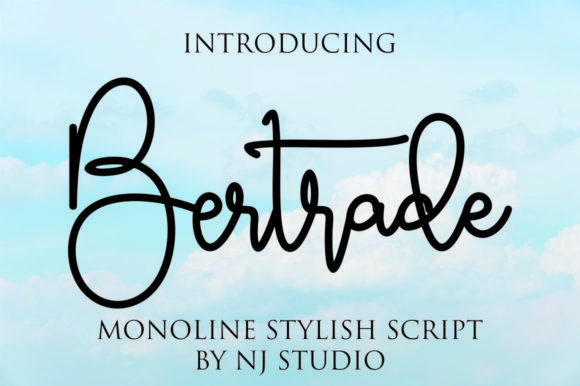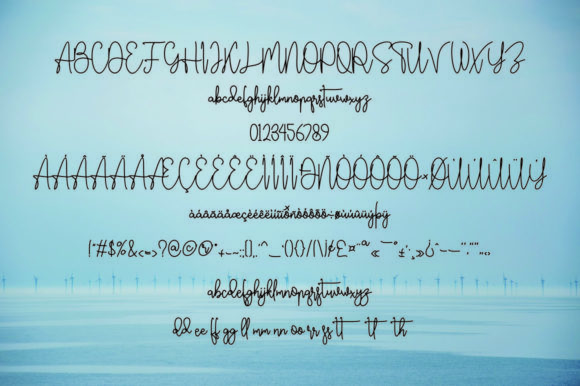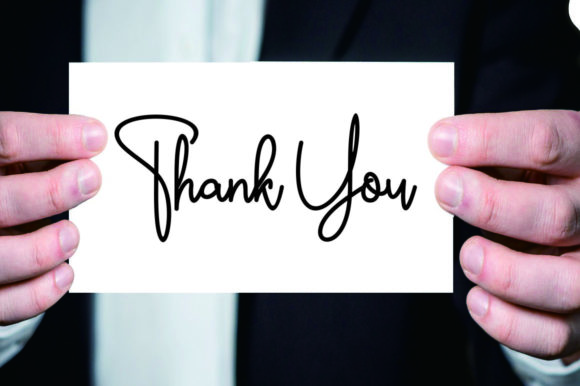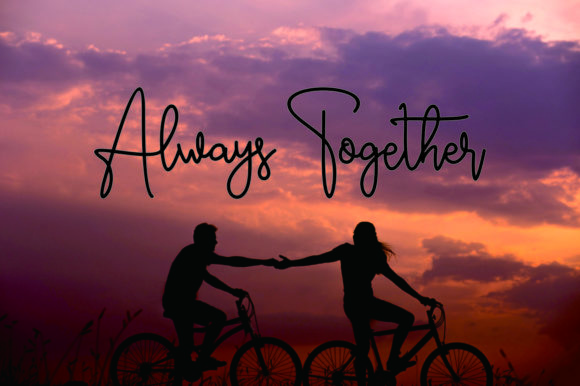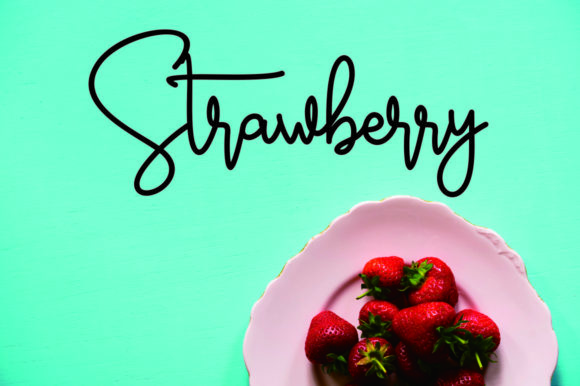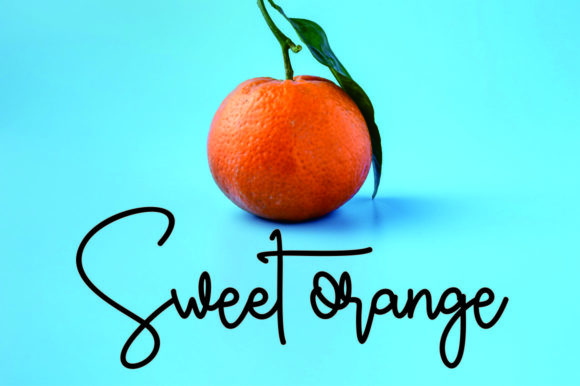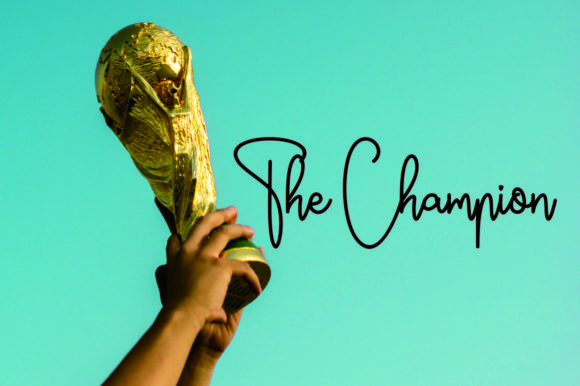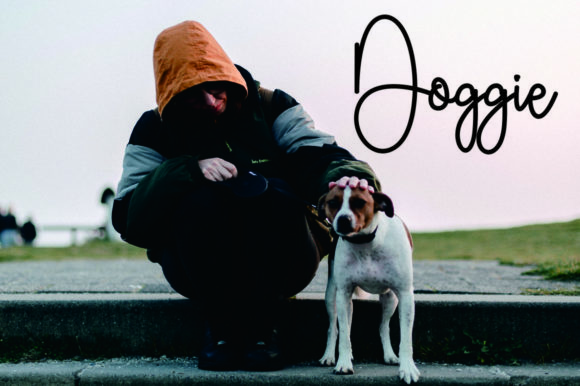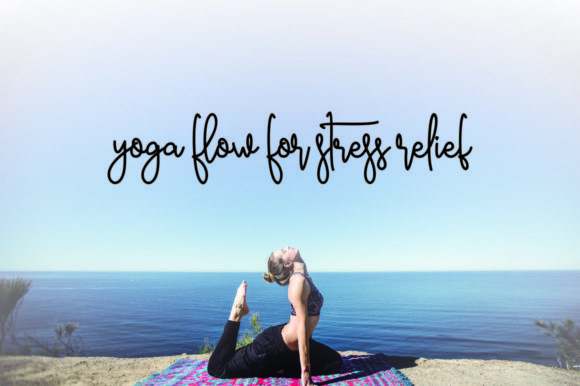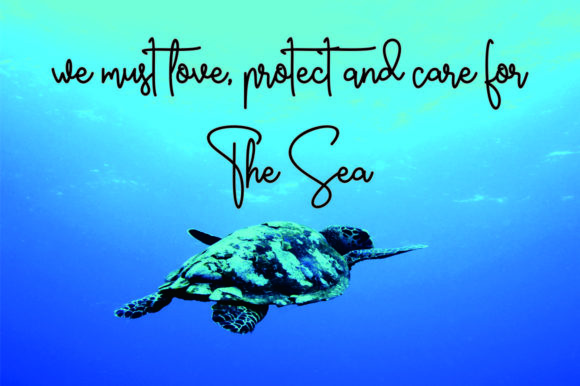
Bertrade Font
About Bertrade Font
Bertrade is a cool and friendly script font. Use it for any design project that requires a sophisticated appearance!